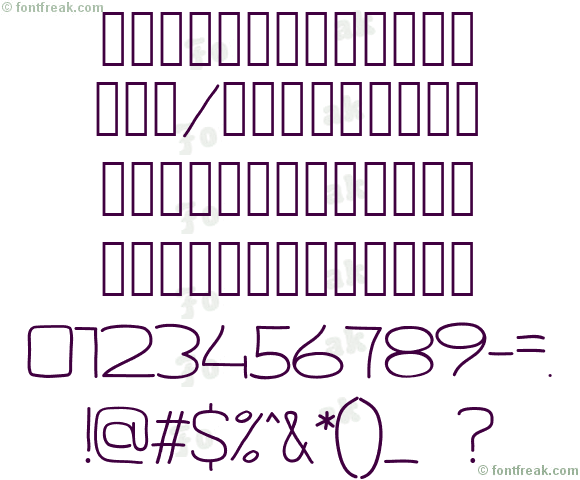
PtilWide Regular
PtilWide Regular, designed by Amos Jerbi, is a striking sans-serif font that captures attention with its bold and modern aesthetic. This font features a consistent stroke weight, which lends it a clean and contemporary look that is perfect for various design applications. The overall spacing is generous, allowing for easy readability while maintaining a stylish appearance. PtilWide Regular showcases minimal contrast in its letterforms, making it versatile for both print and digital media.
This font is ideally suited for a variety of use cases, such as restaurant menus, where its clarity can enhance the dining experience, or movie posters, where it can make bold statements that draw in viewers. It also works wonderfully for branding materials, providing a strong visual identity for small businesses. Additionally, PtilWide Regular can elevate wedding invitations, adding a touch of modern elegance to special occasions. Content creators will find this font beneficial for social media graphics, where eye-catching typography is essential.
What sets PtilWide Regular apart is its ability to balance modernity with simplicity, making it suitable for a wide audience. Its approachable design ensures that it complements a range of themes while remaining distinctive. For anyone seeking a versatile and aesthetically pleasing font, the PtilWide Regular font free download presents an exceptional opportunity to elevate design projects with ease and style.